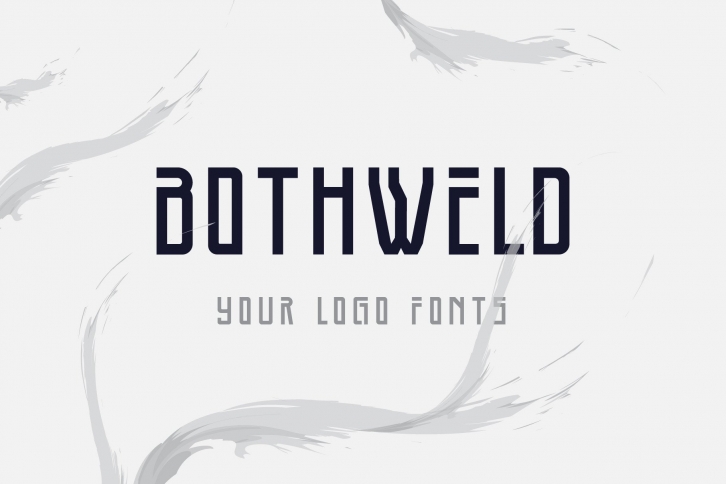
Bothweld is a cool and modern looking display font. No matter the topic, this font will be an incredible asset to your fonts’ library, as it has the potential to elevate any creation.Â